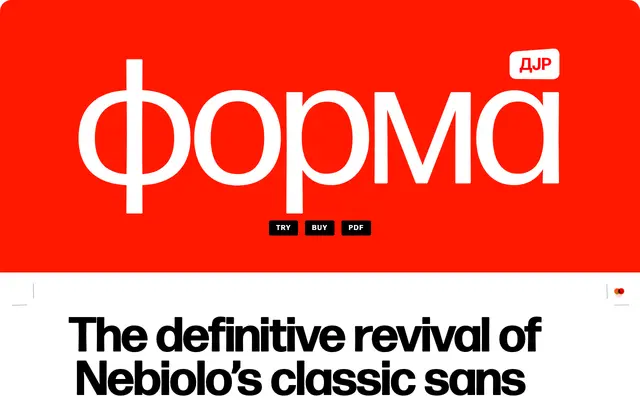
Forma DJR Cyrillic
A Cyrillic extension of the Forma DJR revival, drawn by Jovana Jocić to adapt Nebiolo's modernist sans to Russian, Bulgarian, Serbian and Ukrainian scripts.
Serbia-based type designer Jovana Jocić drew the Cyrillic component as an extension of DJR and Roger Black's revival of Nebiolo's Forma, preserving the original's characteristically tight spacing and approachable modernism. The family spans five weights from Extra Light to Bold, each available across four optical sizes — Micro, Text, Banner and Display — with a variable font included. Existing Latin licensees can upgrade to the Cyrillic at no additional cost.
A Cyrillic extension of a revival of Nebiolo's Forma, a modernist sans-serif with grotesque characteristics. The design adapts the original's tight spacing and approachable modernism to Cyrillic script conventions.